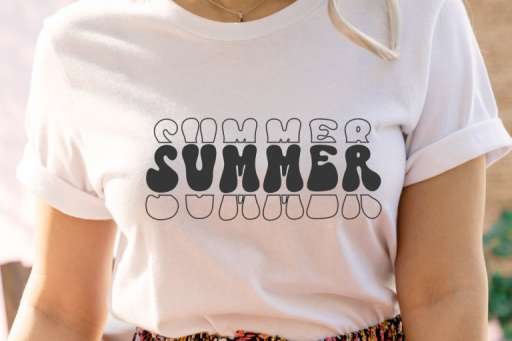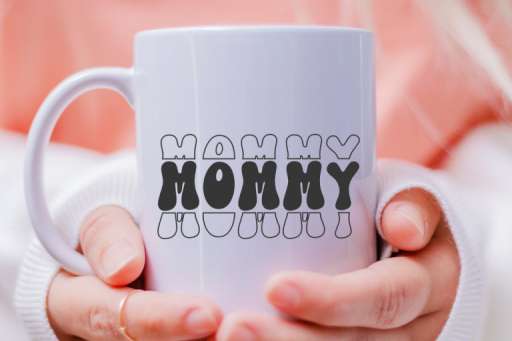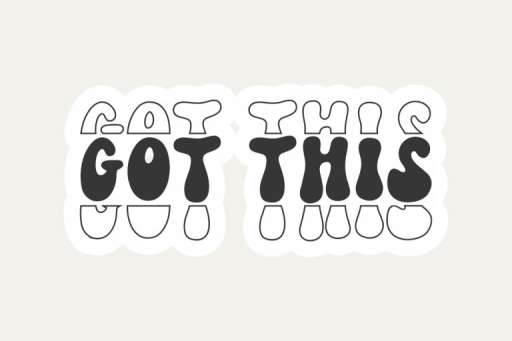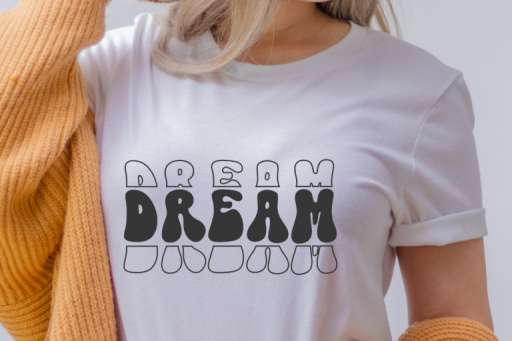
Katarina Font - Groovy Farmhouse Font From Jimtype Studio
Katarina Font
Katarina – Stacked Retro Font from Jimtype Studio
Katarina is a retro stacked font, It’s fun and groovy perfect for branding, vintage design, logo, quotes, web, and many projects. Katarina font has all-caps characters, numbers, and punctuation.
• Multilingual Support with manual setting `,´,ˆ,ˇ,¨,˜,°,¸